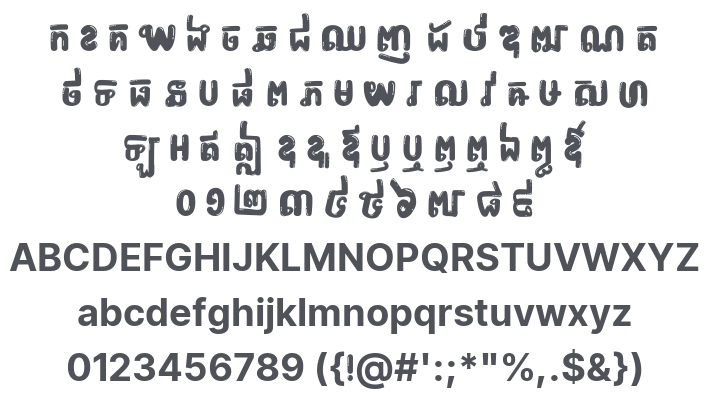
Bobble Pro Font
About Bobble Pro
Bobble Pro is a fancy style. It contains lowercase and uppercase letters, symbol, It will add cheerful vibes to the designs.
This Bobble Pro font is ideal for crafting, branding, and decorating the project. These bubble letters are perfect for educational materials for your classes, wedding invitations, kids, or display purposes for the blog. Also with its help, creating in a beautiful frame.